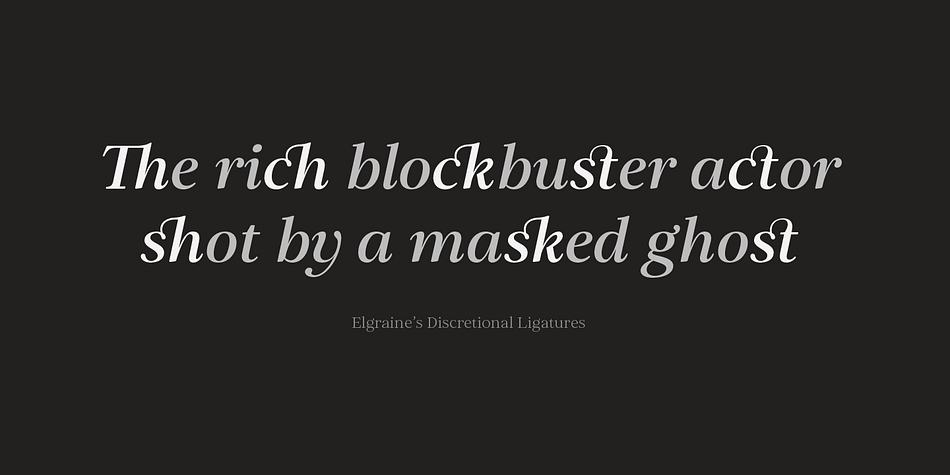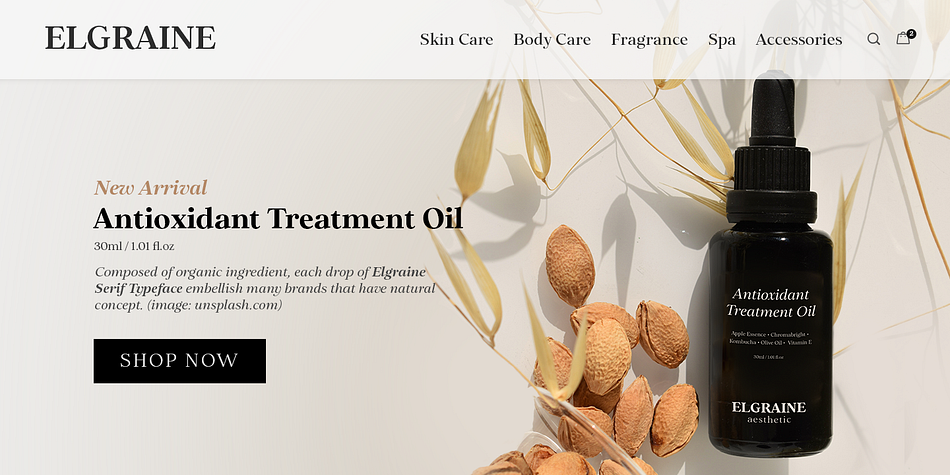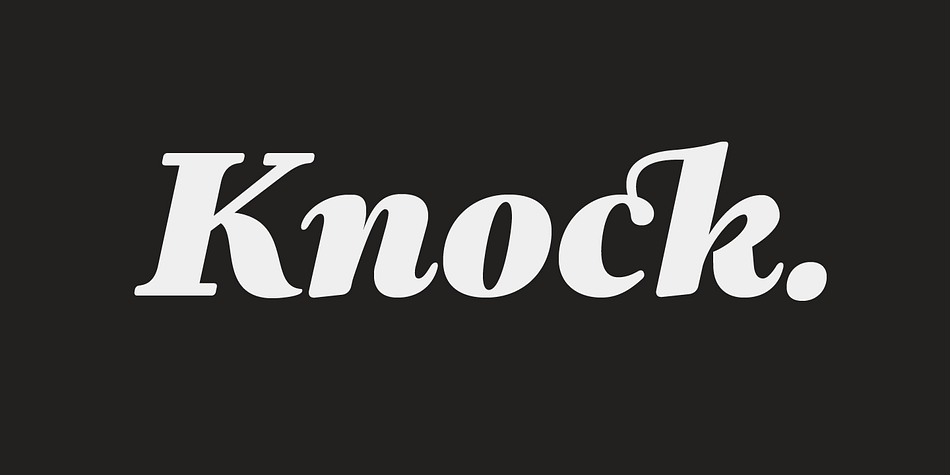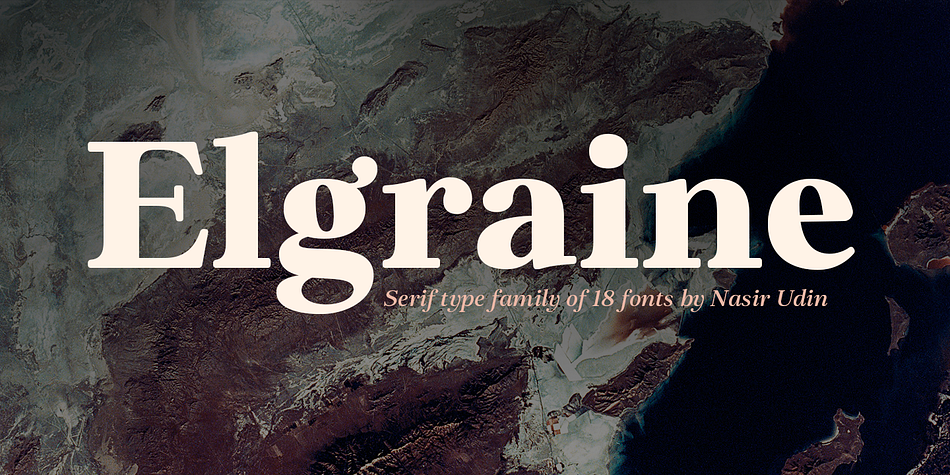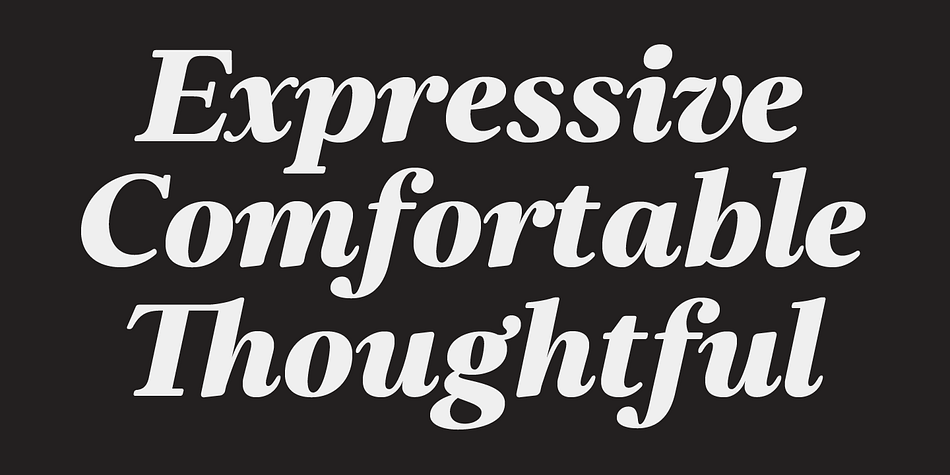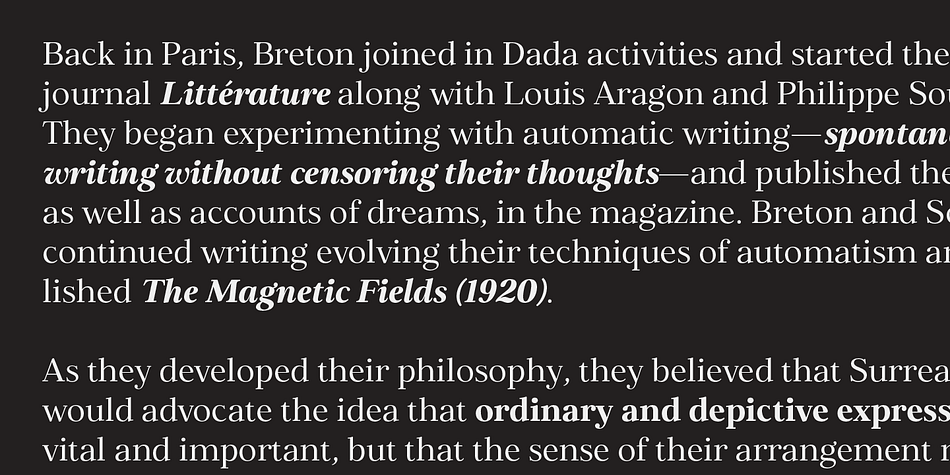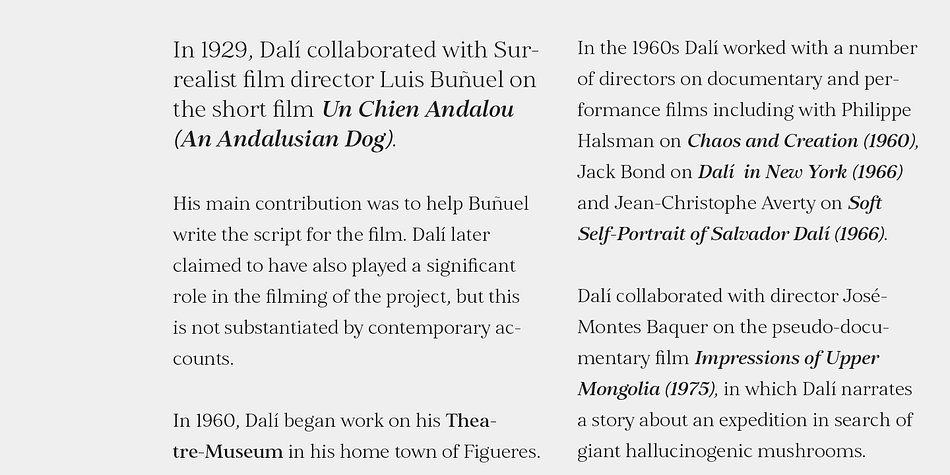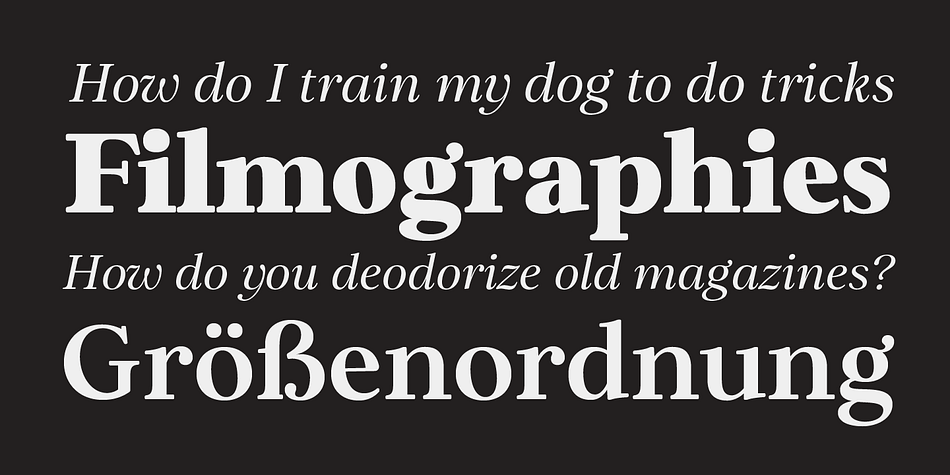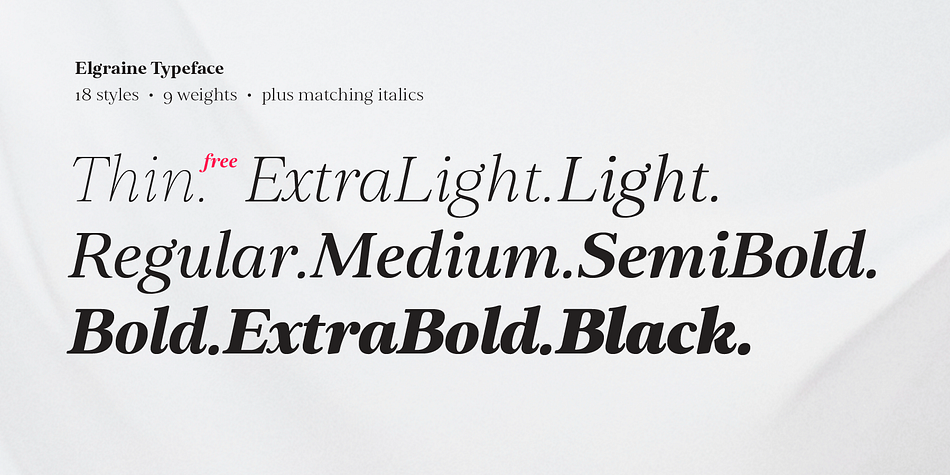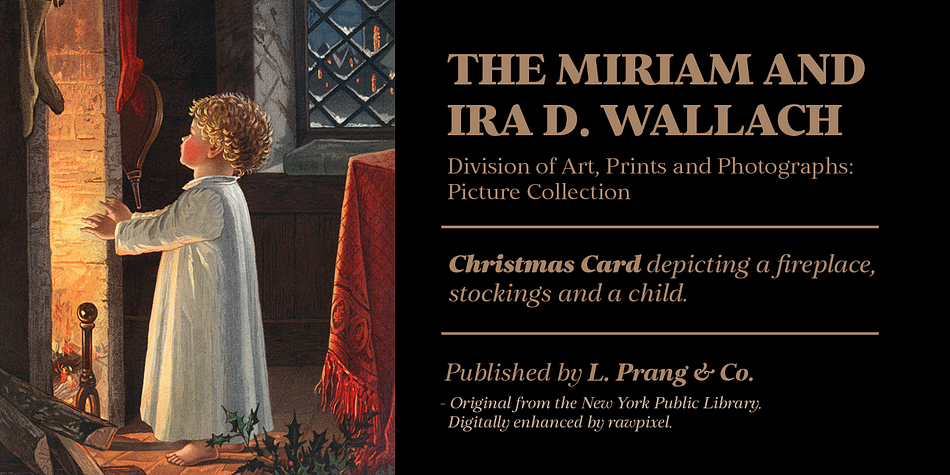
Designed by Nasir Udin, Elgraine is a serif font family. This typeface has eighteen styles and was published by Nasir Udin.
Elgraine is a serif typeface inspired by the beauty of classic serif and calligraphic style, fused with modern touch.
Ranging from thin to black with its matching italics, Elgraine offers many possibilities to be applied in many graphic or editorial projects. The light and regular weights are suitable for long paragraph, and the heavier weights are perfect for striking headlines, perfectly suitable for display purpose such as branding, editorial, and packaging.
Foundry | Nasir Udin |
Designer | Nasir Udin |